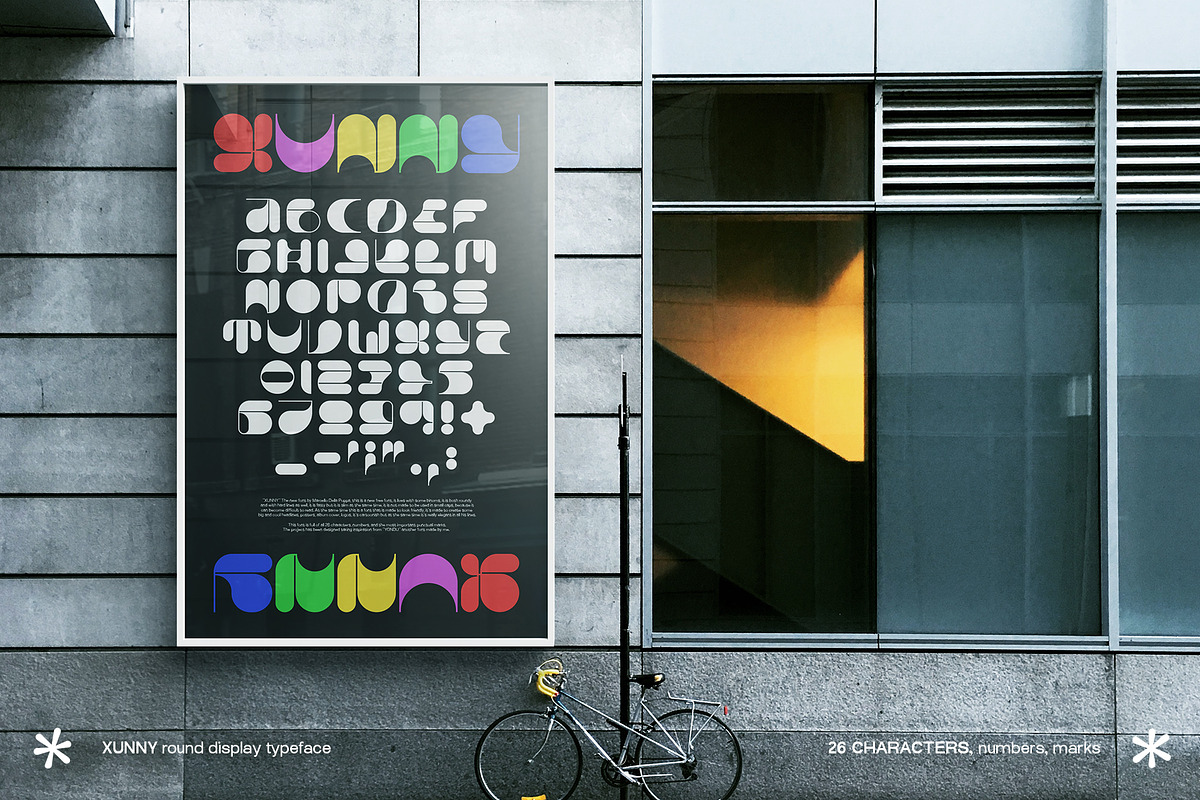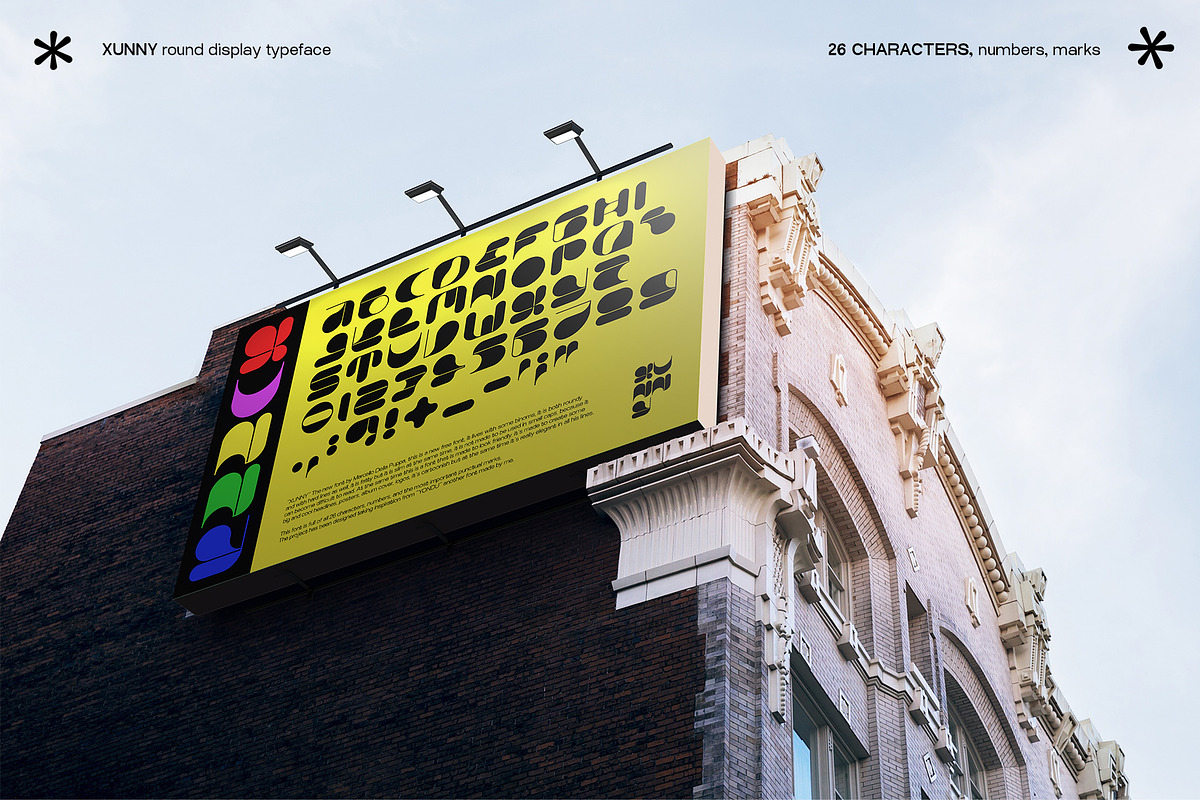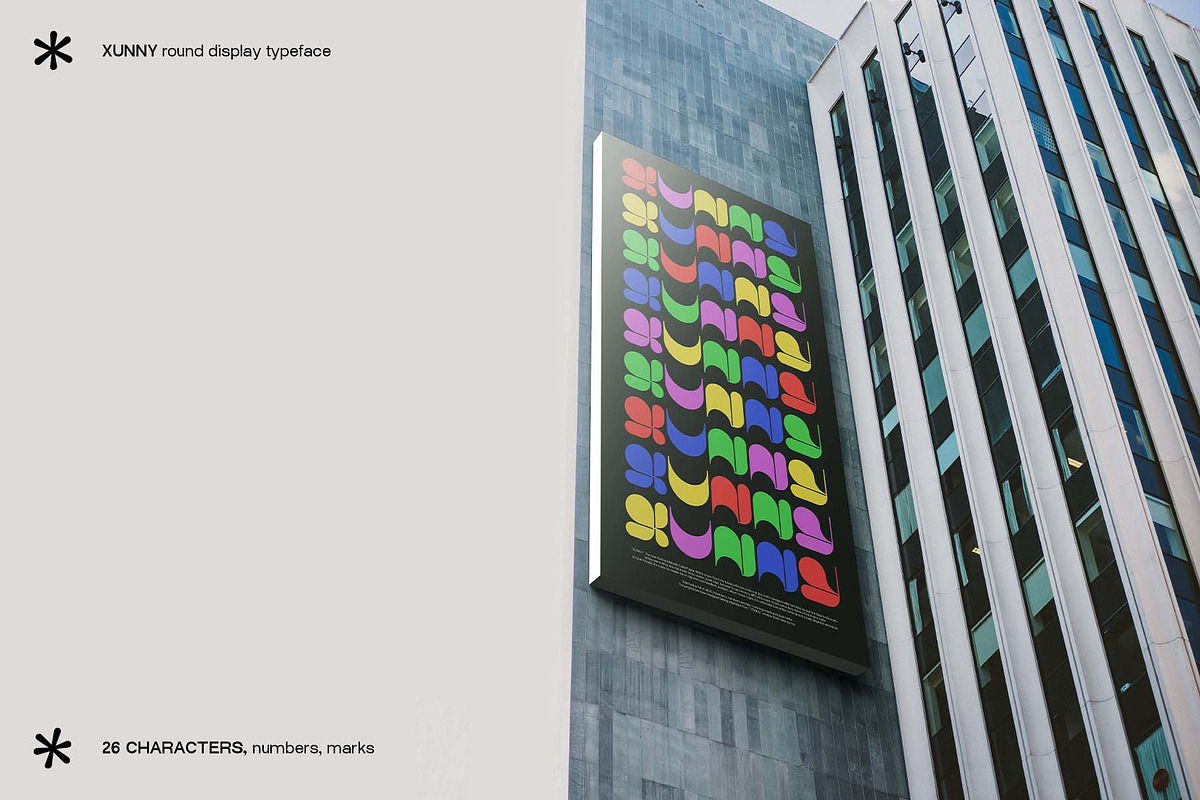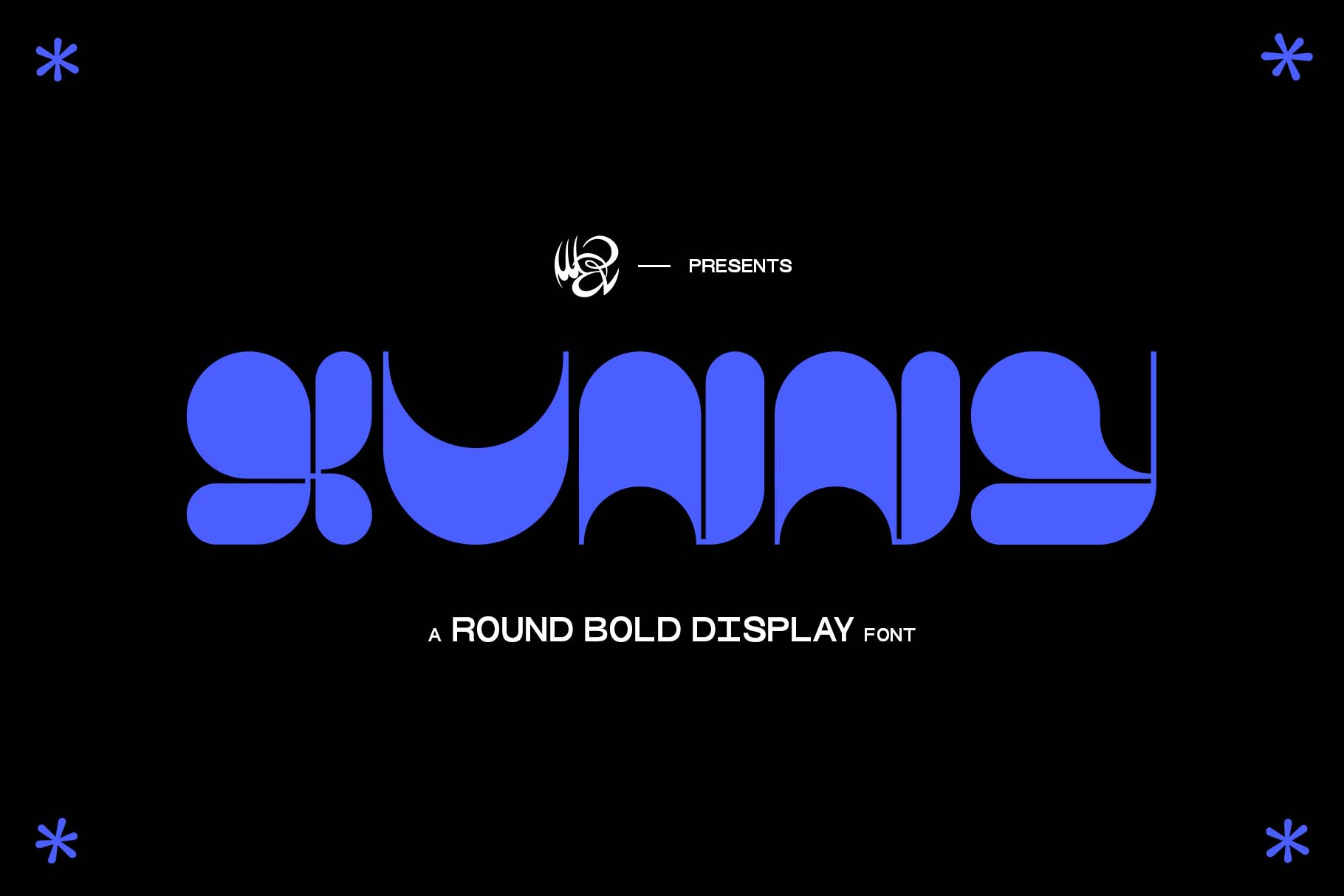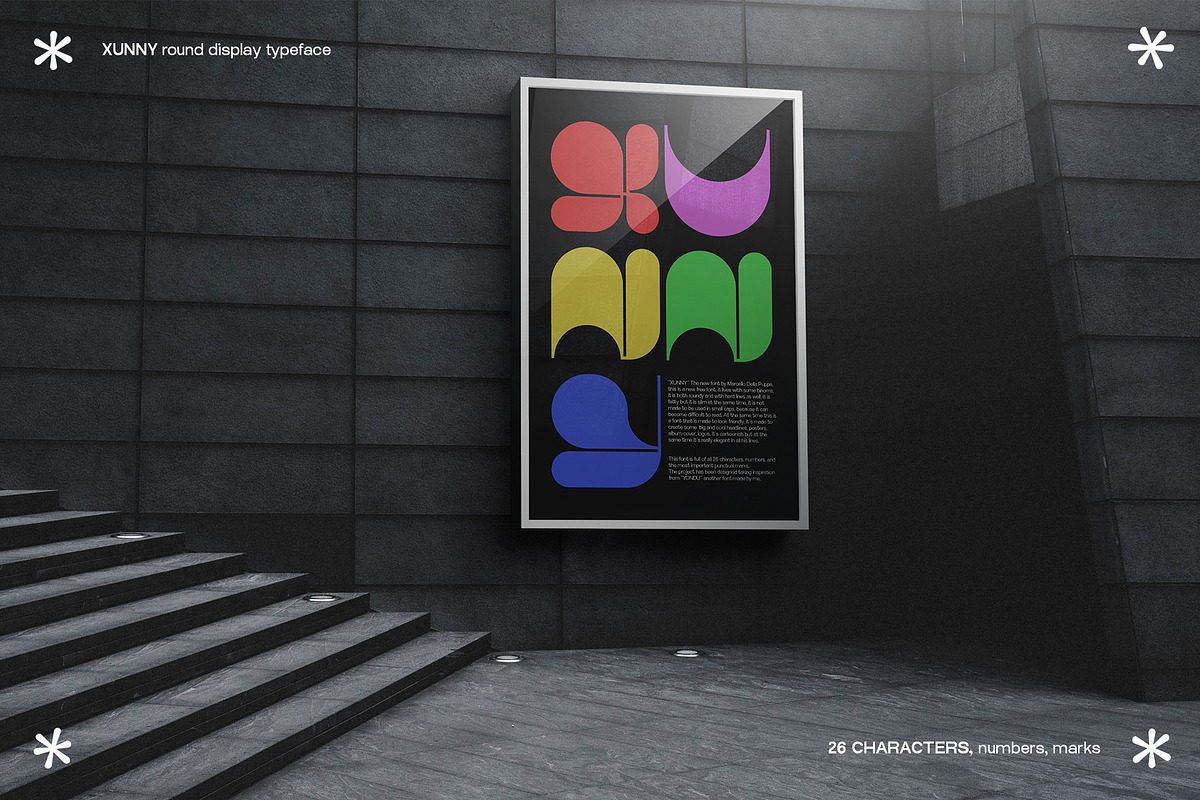
XUNNY Bold Display Typeface
XUNNY is a new bold round typeface full of all 26 characters and numbers, it also comes with the fundamental marks. XUNNY is very friendly in its mood and it's meant to be used to create big headlines, headers, logos, posters, merch and much more!